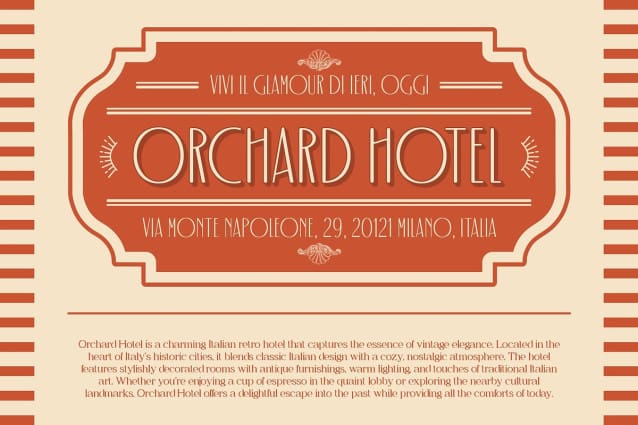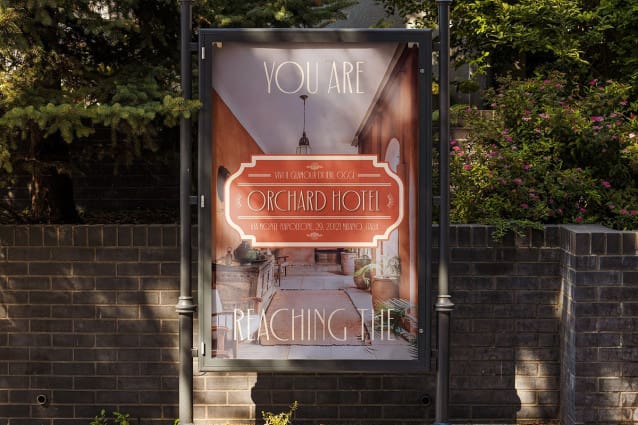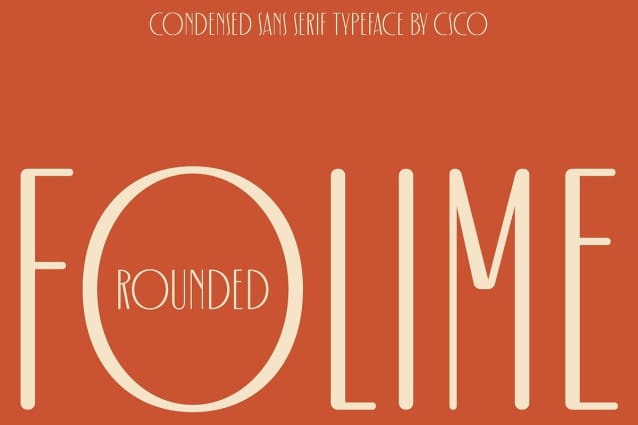
Folime Rounded Font
Folime Rounded Font is a modern sans serif font that blends sleekness with softness. Its condensed form ensures excellent visibility even in tight spaces, making it ideal for headlines and branding that need to make a strong impact. The font’s compact design allows it to fit seamlessly into various layouts without sacrificing readability, making it an optimal choice for both print and digital media where space efficiency is key.
Rounded Edges for Approachability The rounded edges of Folime Rounded add a layer of friendliness and warmth, softening the otherwise modern appearance. This unique combination of sleek lines and smooth curves creates an inviting and approachable feel, making it perfect for contemporary branding, tech projects, and websites that aim to be both professional and personable. The font’s rounded nature makes it versatile, fitting effortlessly into creative and commercial designs alike.
Versatile for Digital and Print Folime Rounded’s contemporary appeal and versatile design make it a great choice for a wide variety of applications, including branding, advertising, and digital designs. Its clarity and approachable aesthetic help convey professionalism without being overly rigid or cold. Whether you’re designing for a tech company, a startup, or a creative studio, this font strikes the perfect balance between modernity and warmth, ensuring your message is both clear and inviting.